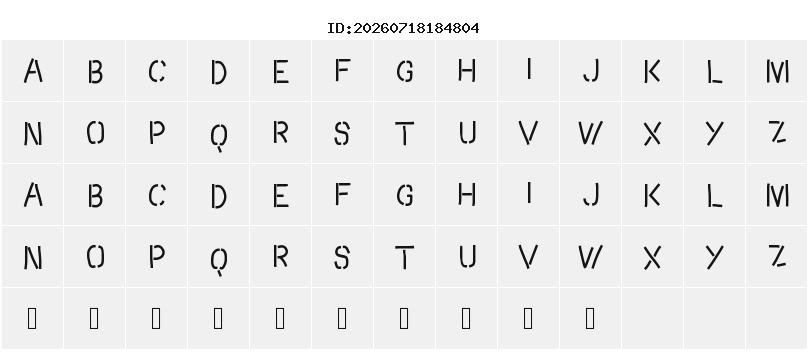
• Font Name: Crossroads
• Full Font Name: Crossroads
• Character Count: 53
About Crossroads.ttf
Crossroads.ttf is a modern, elegant sans-serif font designed for ultimate readability and visual harmony. Perfect for branding, headlines, web design, and print materials.